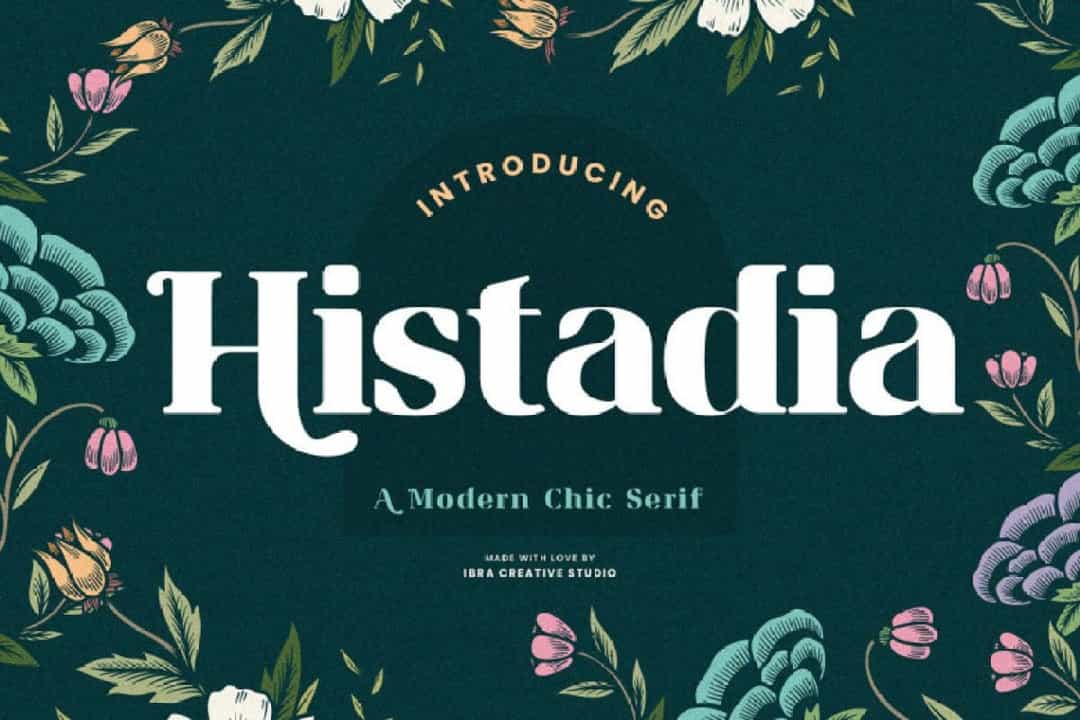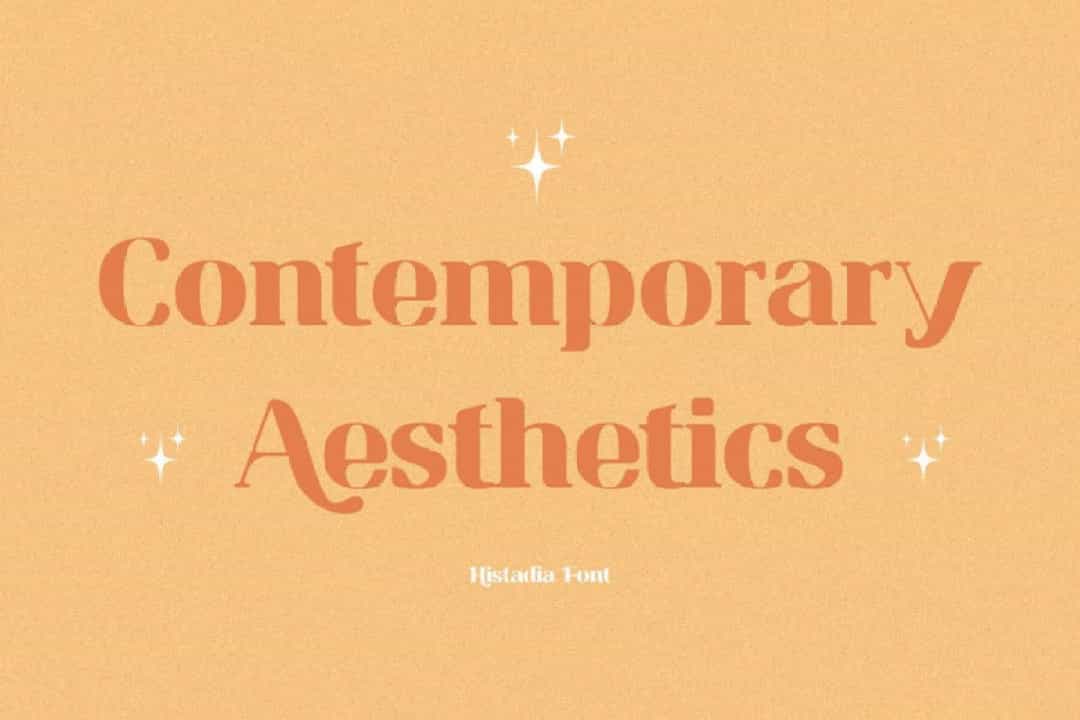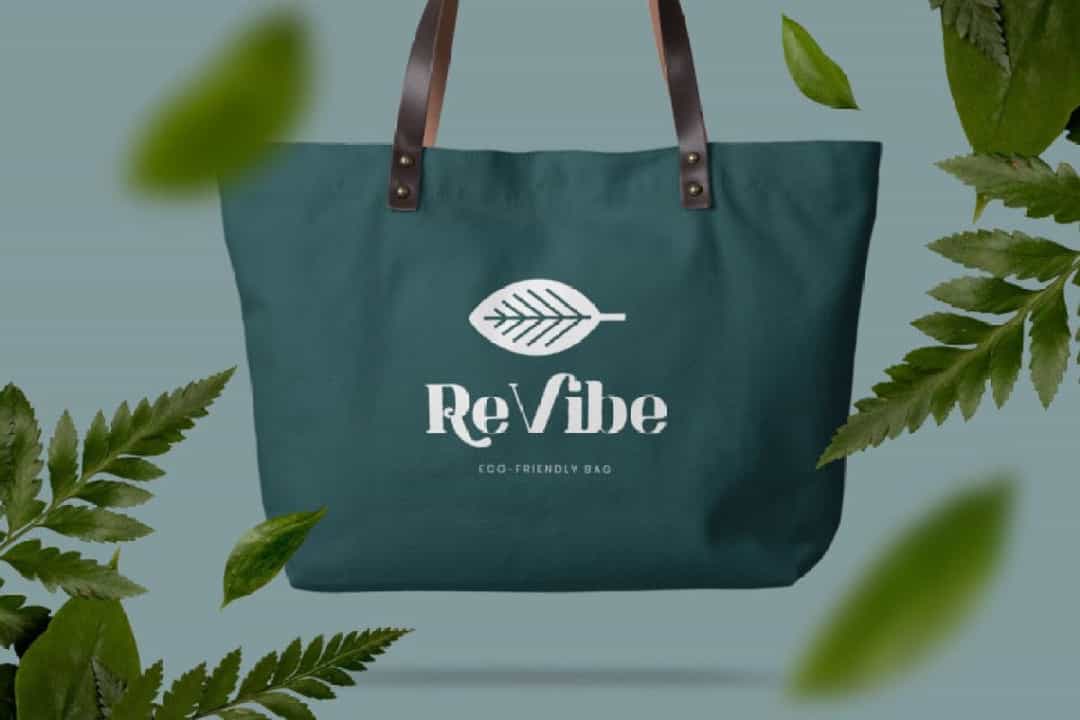
Histadia is an eye-catching contemporary serif typeface which effortlessly marries timeless elegance with modern aesthetics. Featuring graceful letterforms of high contrast that offer elegance and versatility, Histadia makes for an excellent choice in many design-related projects.